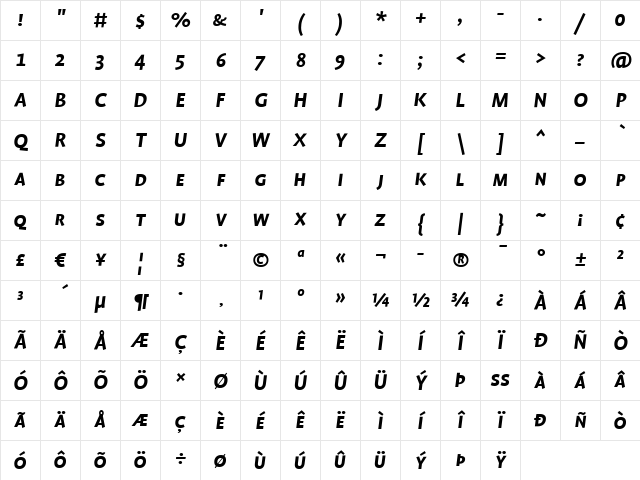
Complete ProfileSC Bold glyph index. Displaying only characters natively supported by ProfileSC Bold font.
ProfileSC is a composed and adaptable typeface that performs quietly and consistently across a wide range of design contexts. Its bold stroke weight gives it real presence on the page.
Who designed the ProfileSC Bold font?
This font was published by by Martin Wenzel, published by FontShop International for the FontFont library. Profile is a trademark of FSI, Fonts and Software GmbH, http://www.fontfont.de. Check the technical specs section for copyright and designer details.